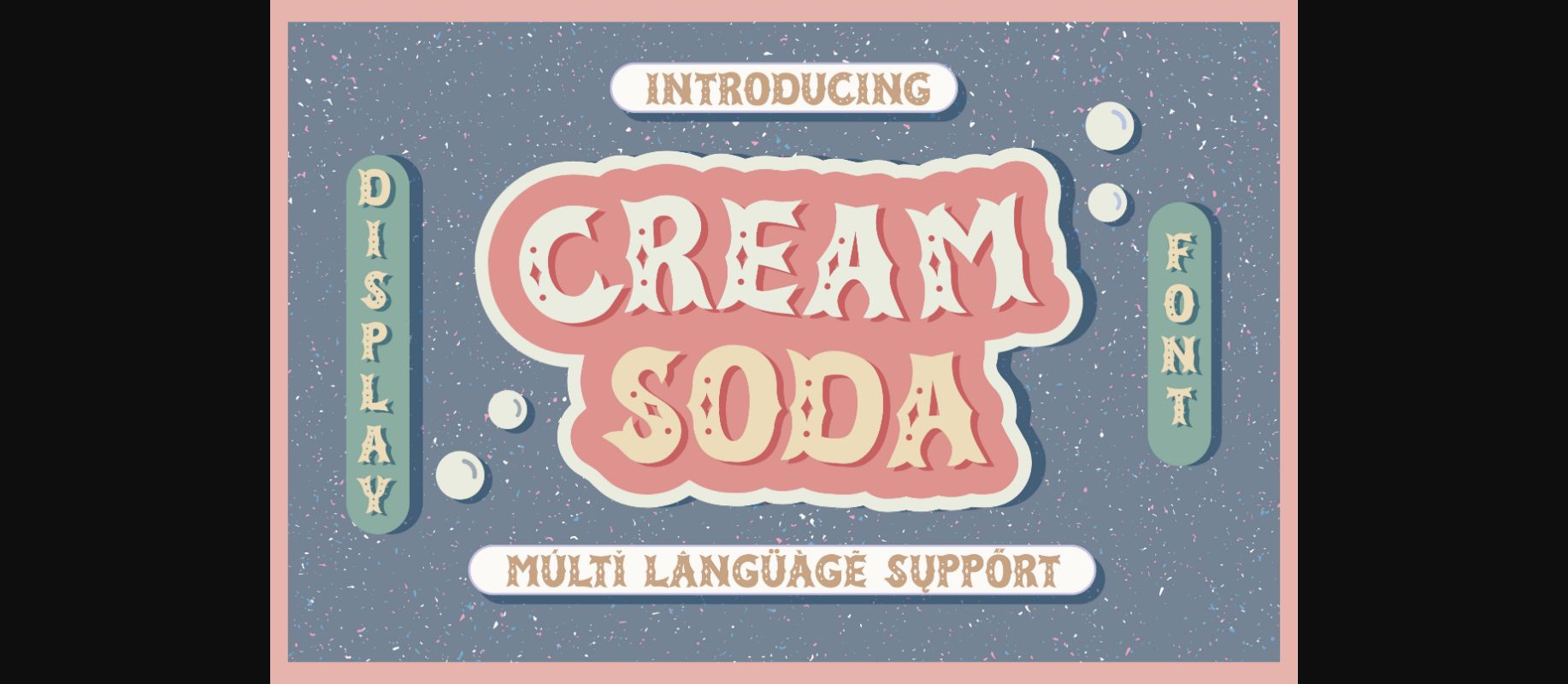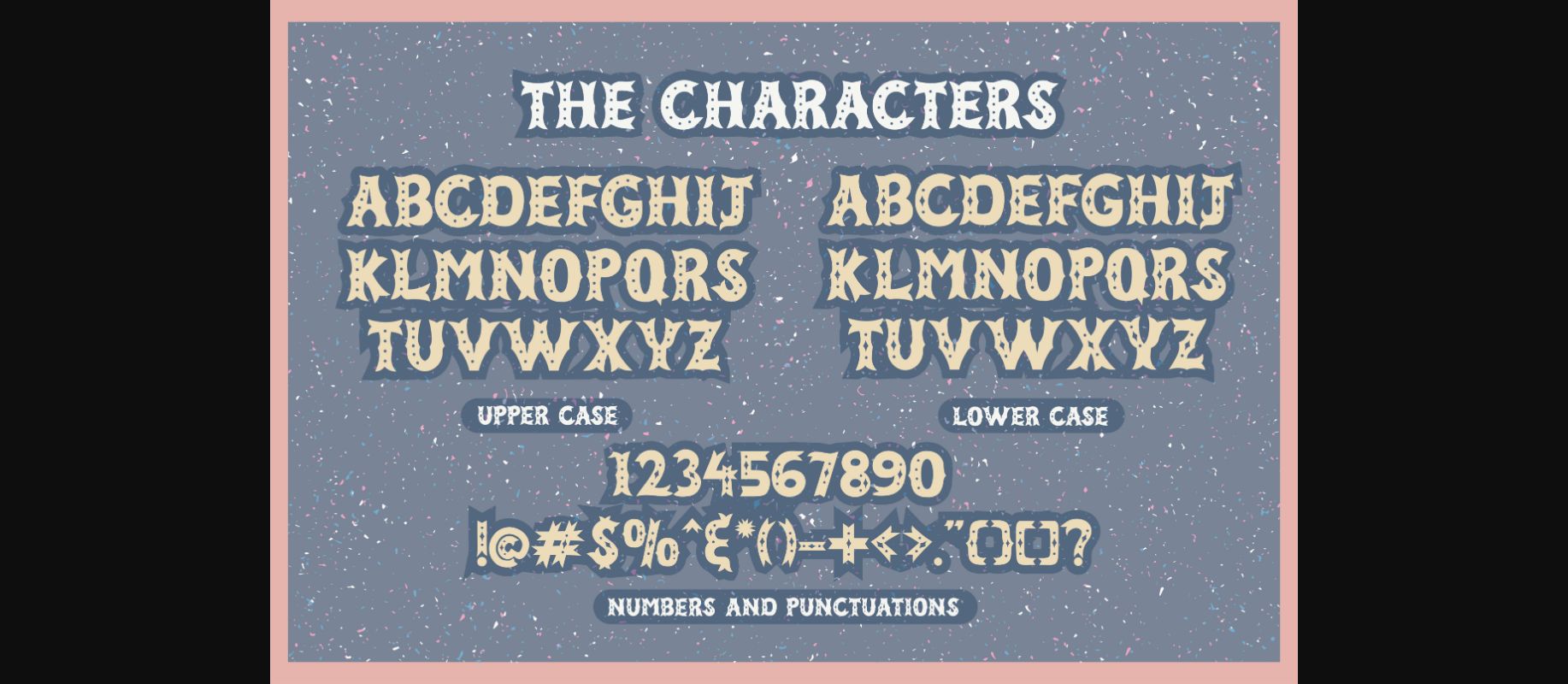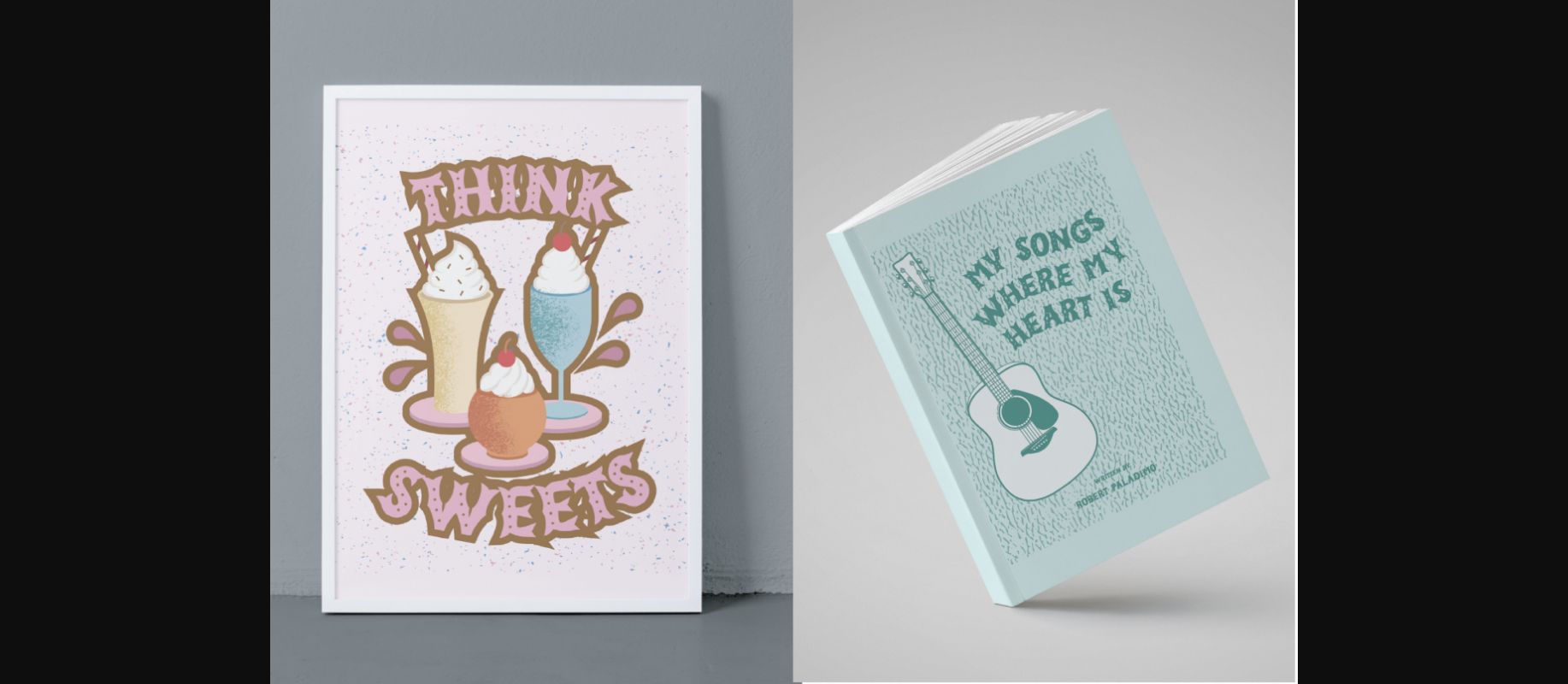
Cream Soda Font
About Cream Soda Font
Cream soda is a display font inspired by vintage designs. If you need a font with a vintage style looking you’re looking at the right font!
It is a perfect font for making posters, flyers, etc.